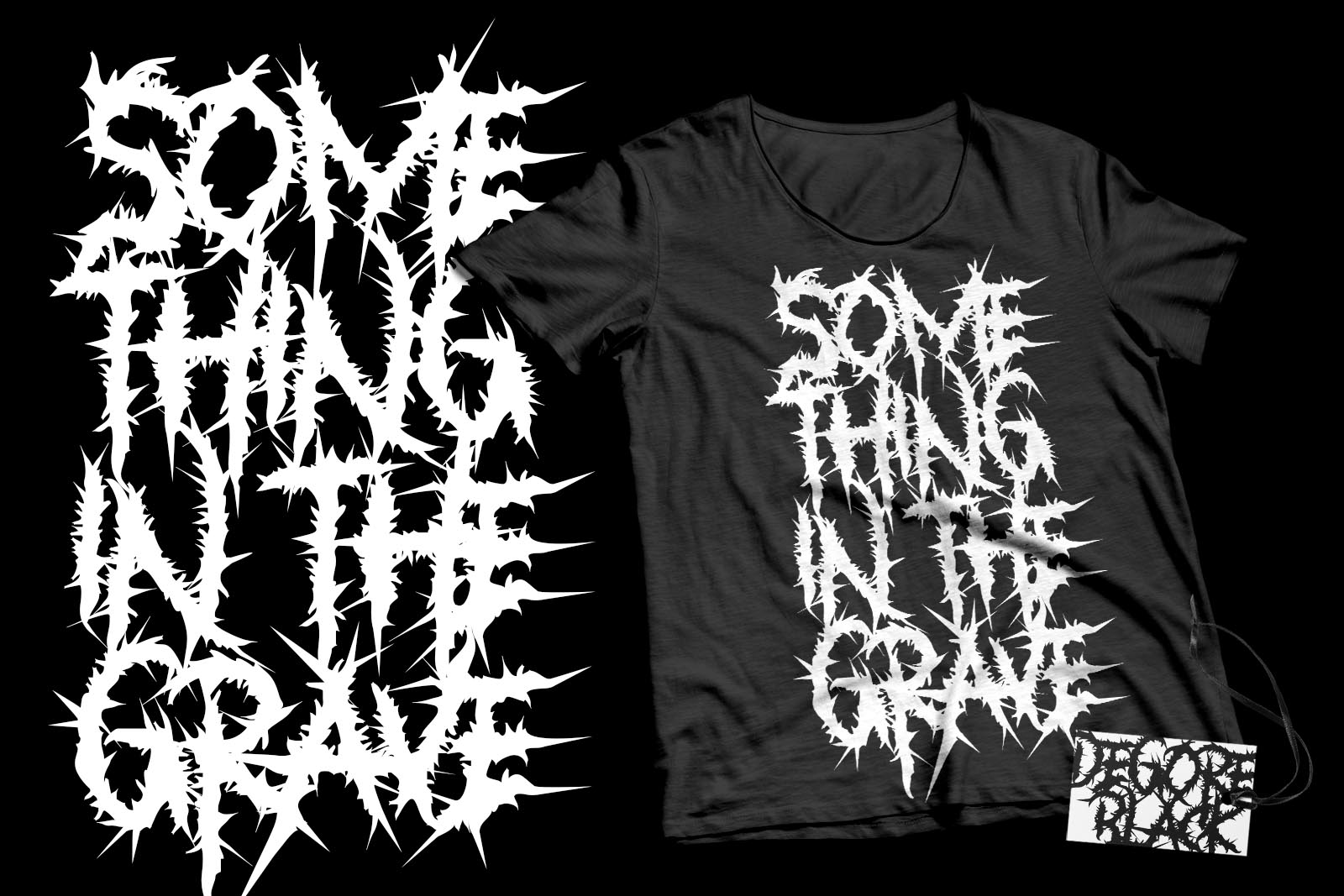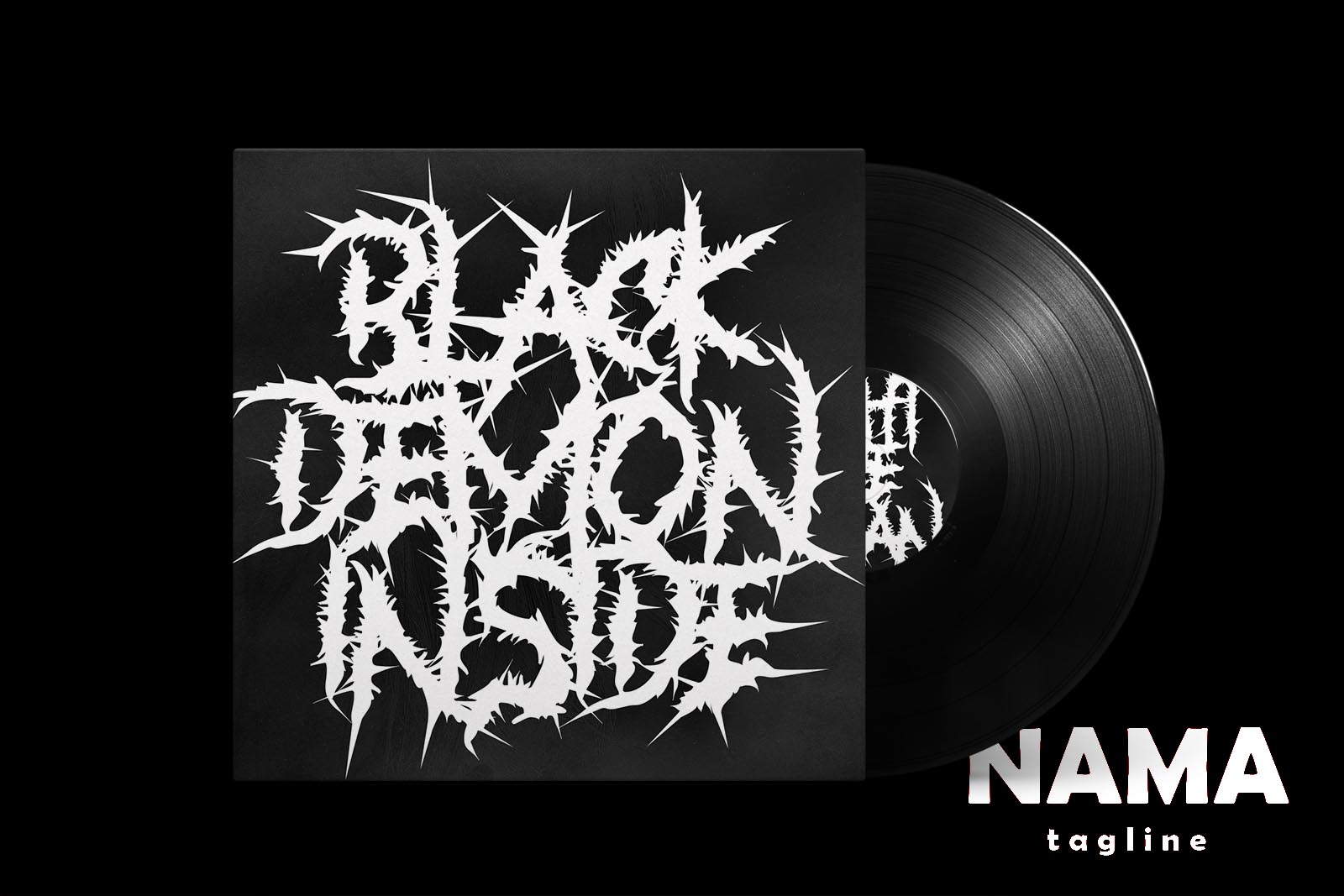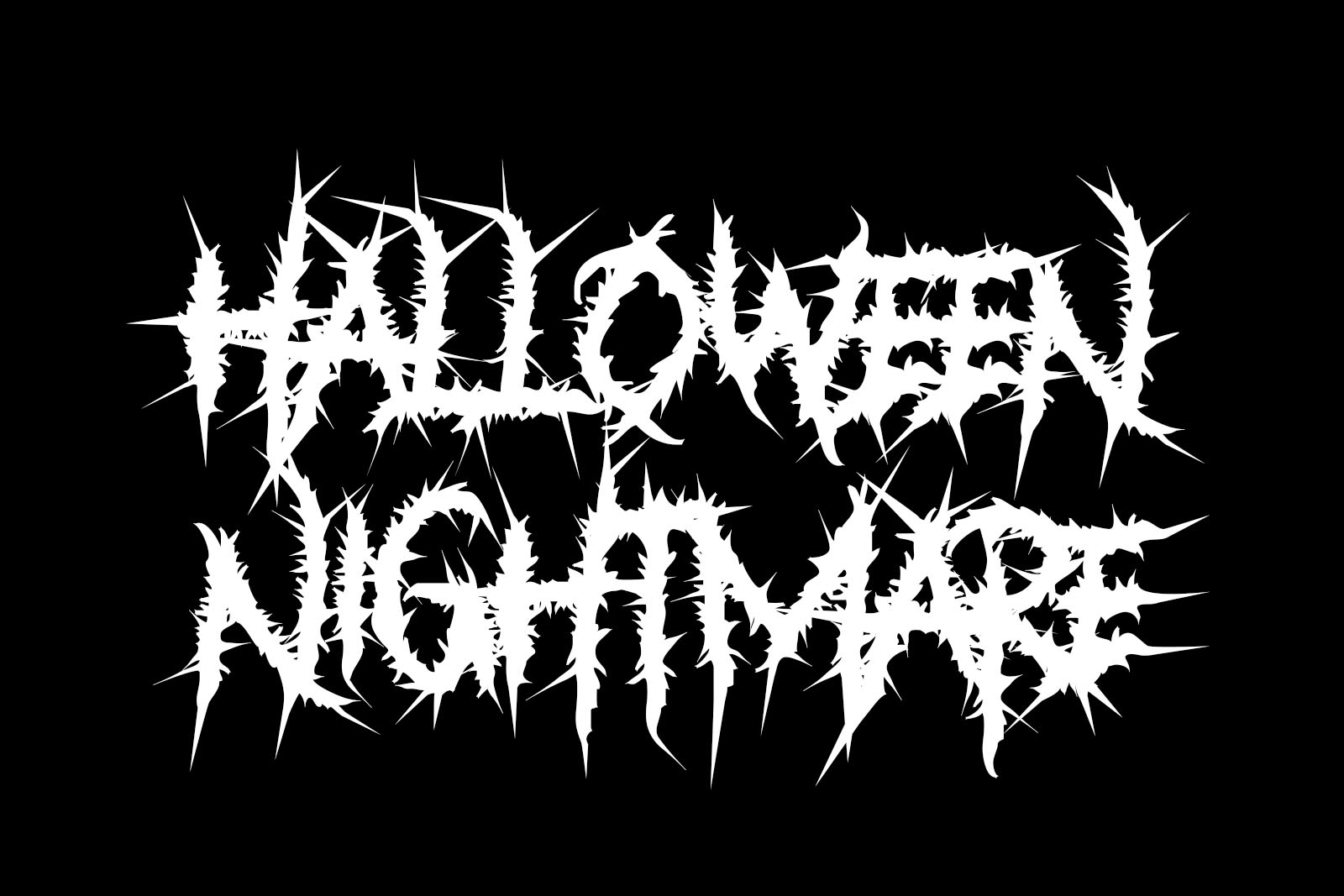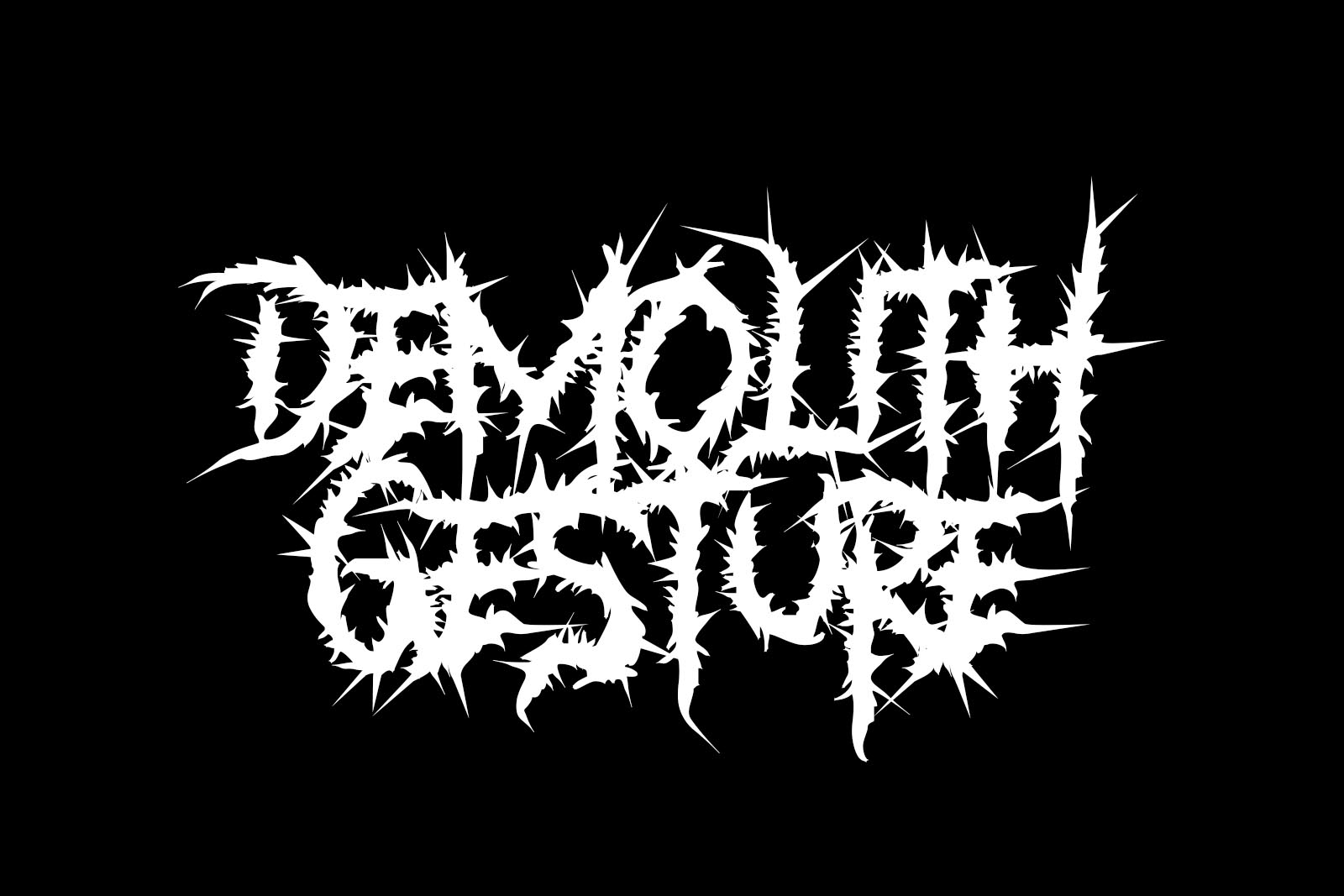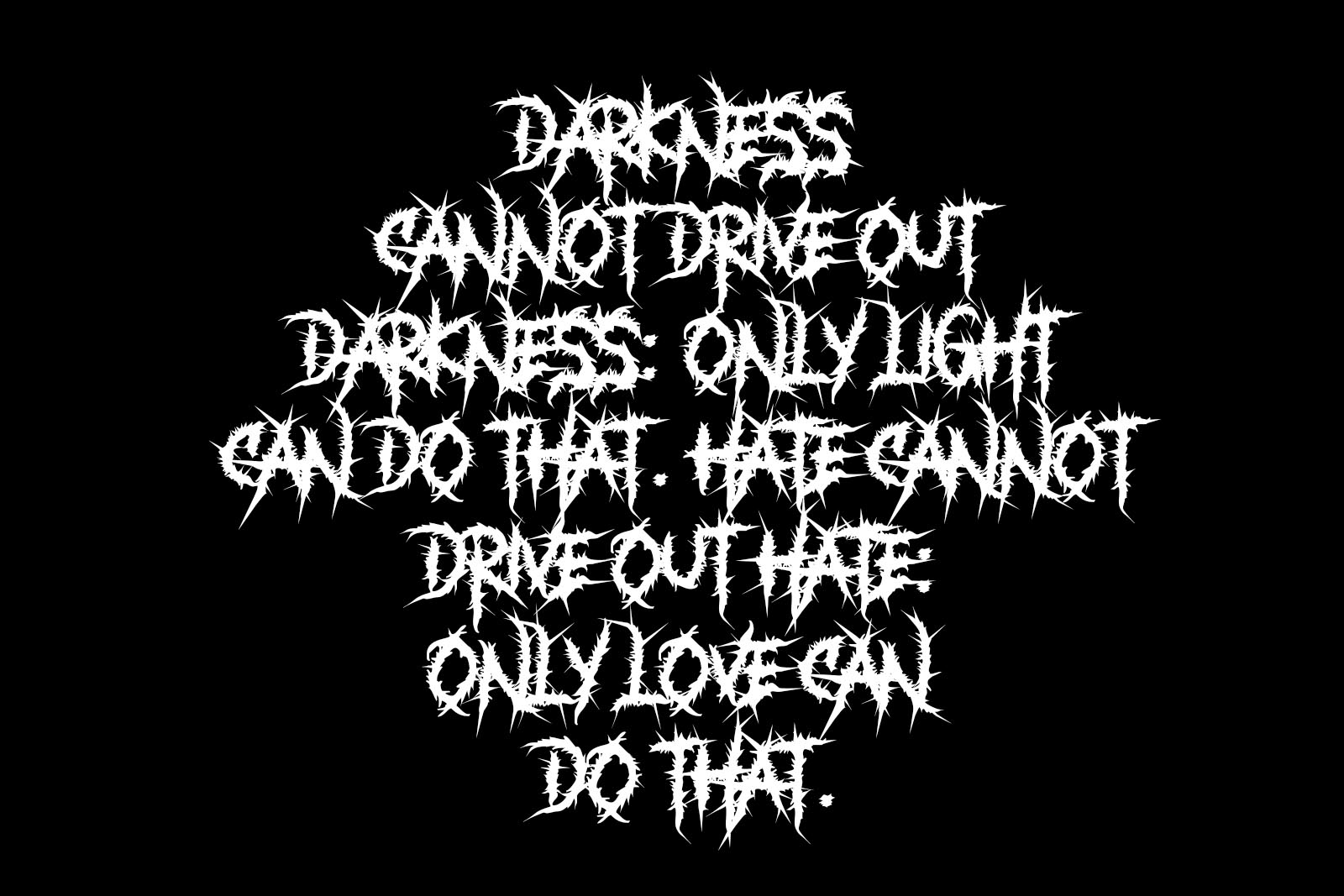
Something on The Graveyard
Something on The Grave Yard  is awesome black metal font. Comes with Uppercase and lowercase characters, and Uppercase alternates. This font is best seller font in black metal fans. Something on The Grave Yard is awesome for your logo, your band, for merchandise, for clothing, and for your band concert